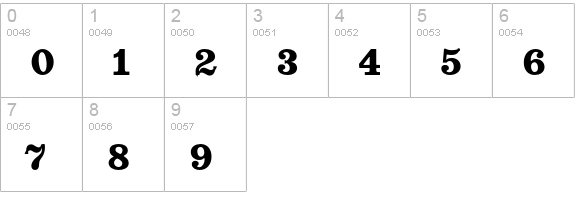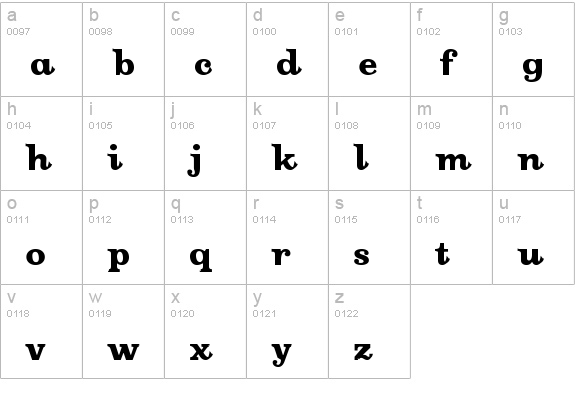
Oxtail Black Font Details
Oxtail Black is a maximum-weight, dramatic variant in the Oxtail typeface family \xE2\x80\x94 well suited to maximum-impact headlines, posters, and packaging.
Introducing Oxtail Black font, a sleek and modern typeface that exudes sophistication and elegance. With its bold and distinctive letterforms, Oxtail Black is perfect for making a statement in your designs. This versatile font is ideal for a wide range of projects, from branding to editorial design. And the best part? Oxtail Black is available for free download at FontsMarket.com. Don't miss out on the opportunity to add this stunning font to your collection. Elevate your designs with Oxtail Black and make a lasting impression today!